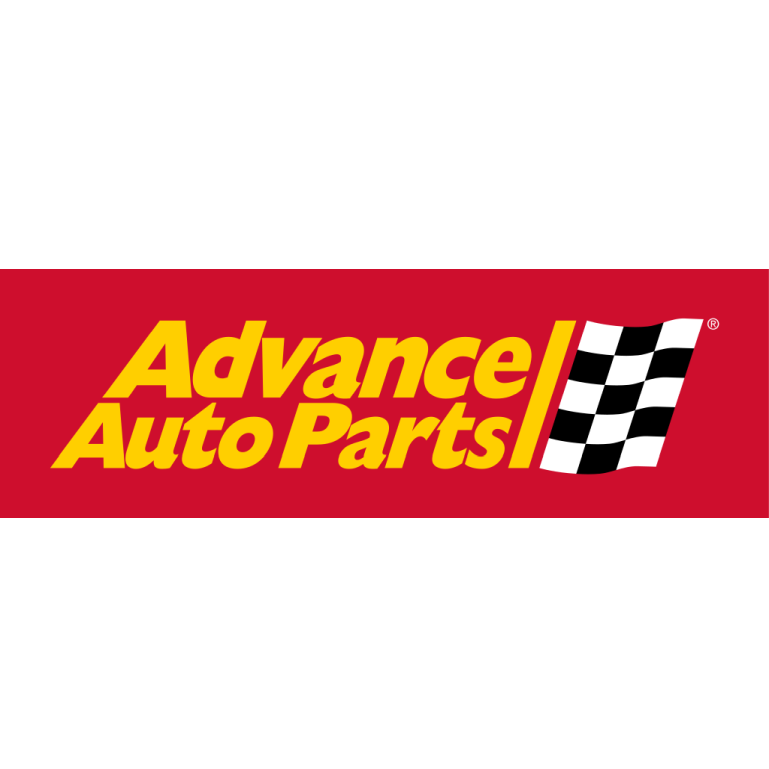
Advance Auto Parts Font
AutomobileAdvance Auto Parts, Inc. is an American company that makes aftermarket automotive parts. Located in Raleigh, North Carolina, it caters to both professional installers and individuals looking to do it themselves.
A slanted variant of Gill Sans Extra Bold is used in the company's logo. Designed by Eric Gill and published by Monotype in 1928, Gill Sans is a humanist sans-serif font. George Ryan, a designer at Monotype Studio, created the most recent digital version, known as Gill Sans Nova, which was made available in 2015.